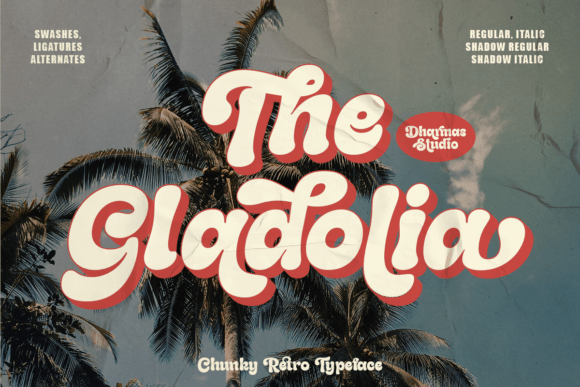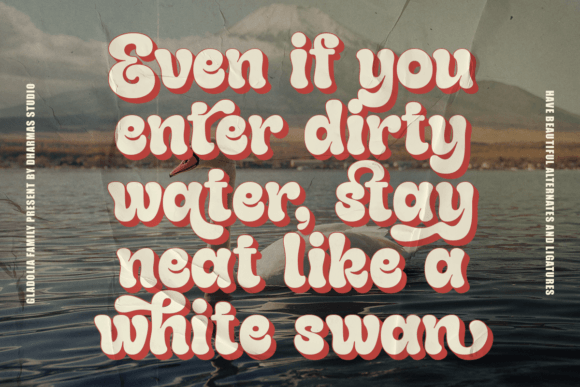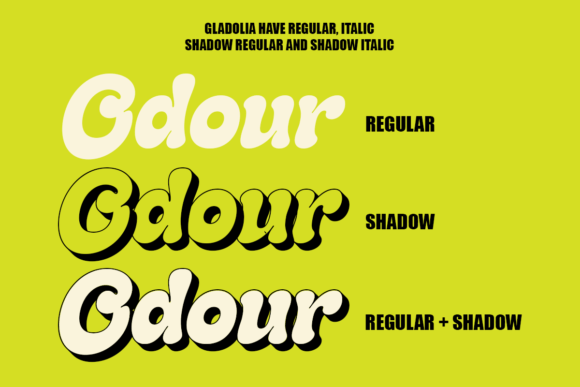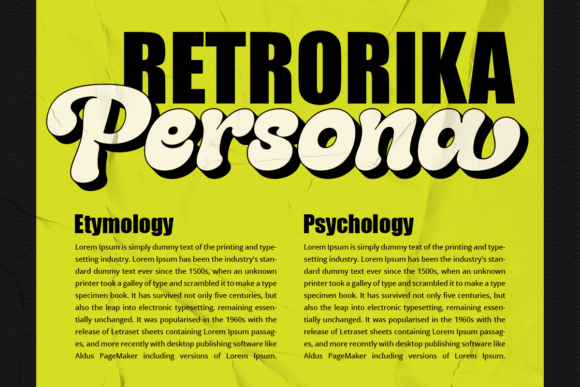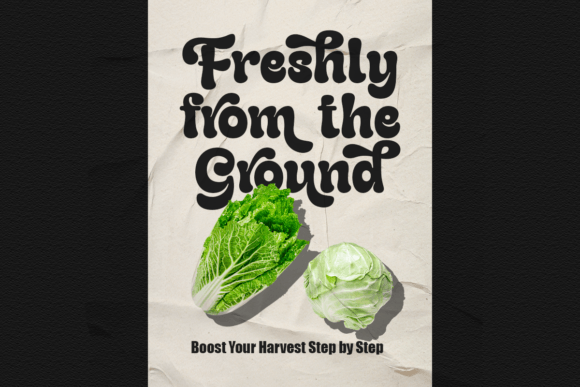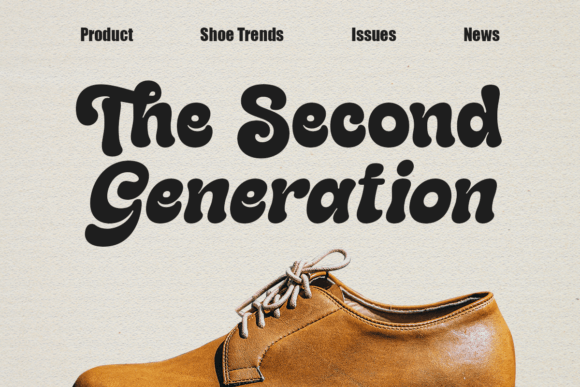
Introducing Gladolia Font: The Ultimate Chunky Groovy Font for Retro-Inspired Designs
Get ready to elevate your designs with the brand new chunky groovy font, Gladolia! This exciting typeface is packed with a unique retro style that’s sure to make your creations stand out from the crowd. Whether you’re a designer, crafter, or DIY enthusiast, Gladolia is the perfect addition to your font library.
A Retro-Inspired Typeface with Endless Possibilities
Gladolia is a chunky typeface with a distinctive retro flair that’s reminiscent of the iconic 80s era. Its bold and eye-catching design makes it perfect for a wide range of applications, from magazine covers and brochures to logos, headlines, and quotes. With Gladolia, you can add a touch of nostalgia and fun to your designs, making them instantly memorable and engaging.
Multiple Styles to Suit Your Design Needs
Gladolia is more than just a single font – it’s a versatile family of typefaces that offers two main styles: regular and oblique. But that’s not all! Each style also comes with an extra extruded font version, giving you a total of six unique fonts to play with. This means you can experiment with different looks and feels, from bold and chunky to sleek and modern, without needing to invest in multiple fonts.
Dynamic and Authoritative: Perfect for Display Projects
Each font in the Gladolia family is designed to be dynamic and authoritative on its own, making it perfect for any display project. Whether you’re creating a show-stopping headline or a stylish logo, Gladolia has the presence and impact you need to grab attention. Its chunky design ensures that your text is always legible, even at smaller sizes, making it a great choice for body text and short paragraphs.
Ideal for Retro 80s Themes and More
Gladolia is the perfect font for retro 80s themes, but its versatility means it can be used in a wide range of design contexts. From vintage-inspired branding to modern digital projects, Gladolia’s unique style and flexibility make it an excellent choice for any designer or crafty looking for a bold and eye-catching typeface.
Use Gladolia for:
- Magazine covers and brochures
- Headlines and quotes
- Short paragraphs and body text
- Retro 80s themed designs
- Digital projects and social media graphics
Get Ready to Rock Your Designs with Gladolia!